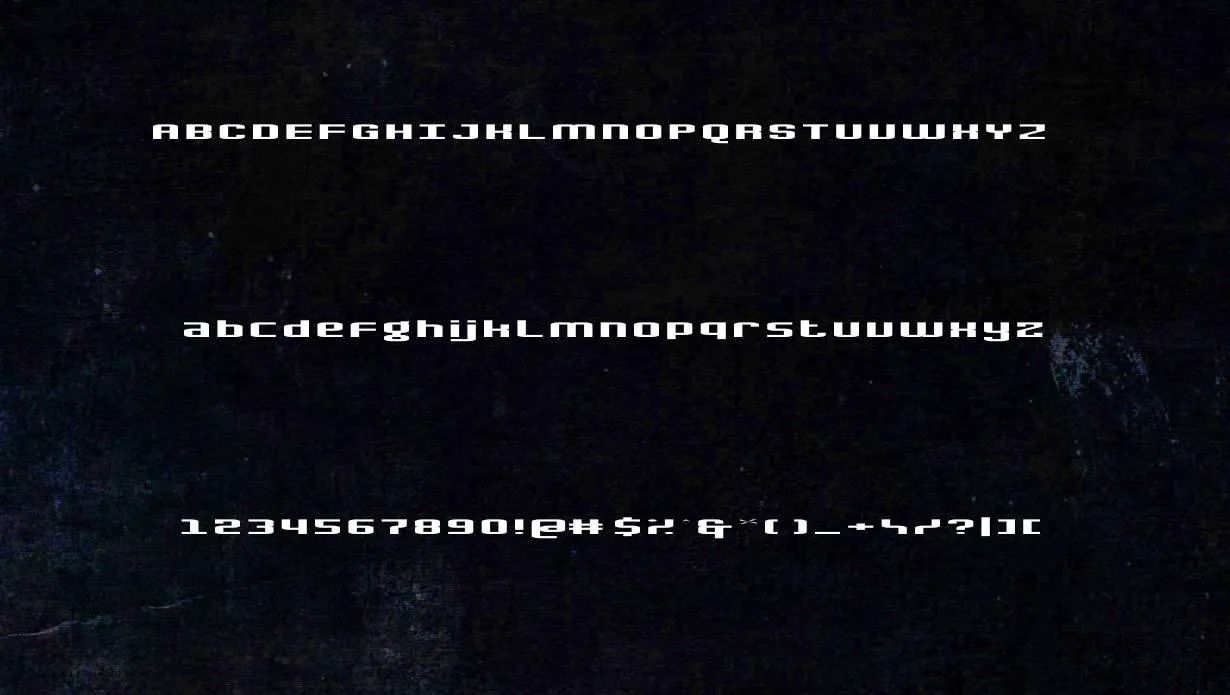
Dive into the world of technology and innovation with Gadget Font. Its sleek and futuristic characters convey a sense of modernity and precision.
| Name | Gadget Font |
| Designer | David Berlow |
Ideal for projects related to science fiction, technology, or anything that requires a cutting-edge look, Gadget Font adds a touch of sophistication and innovation to your text.